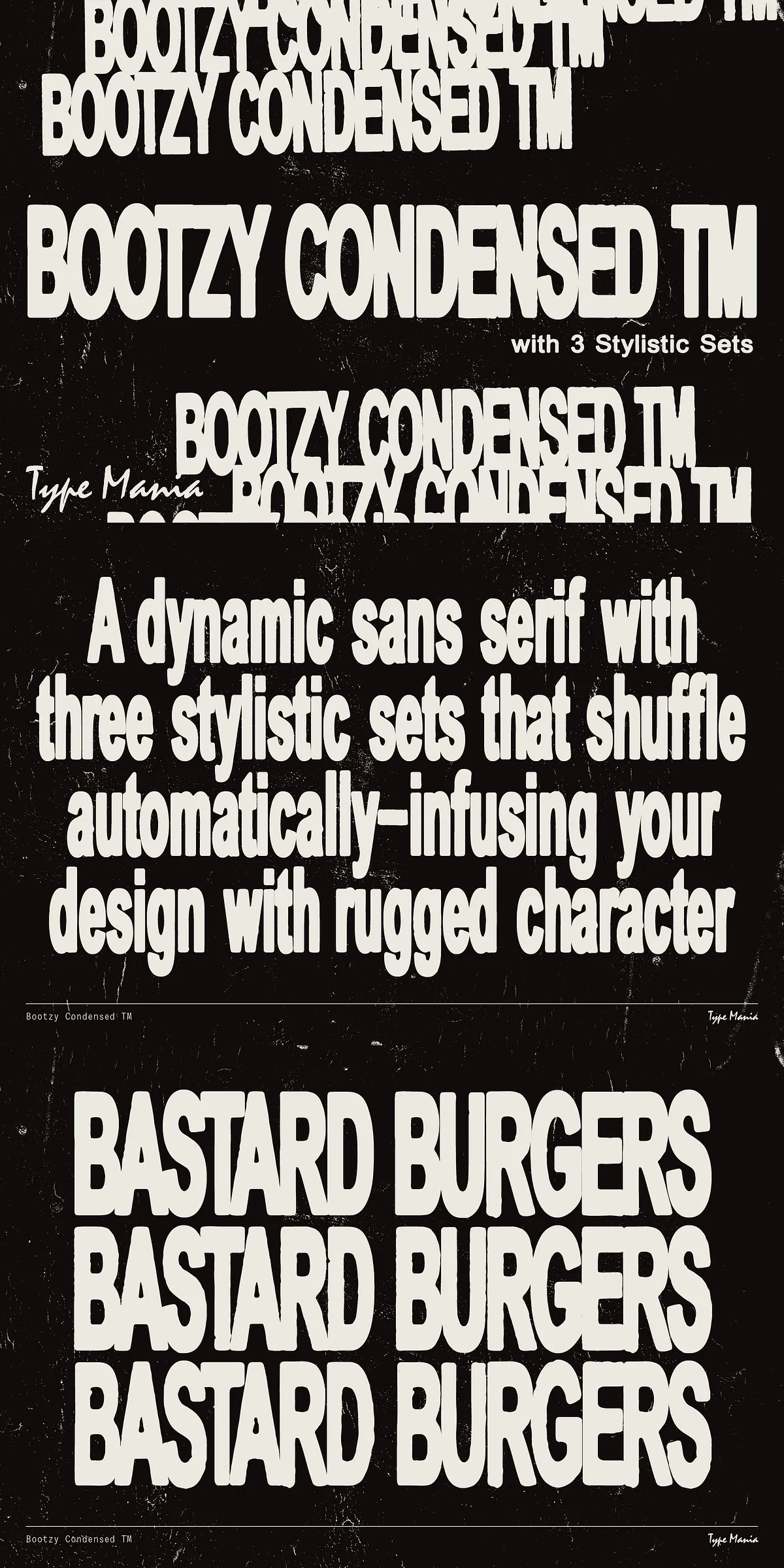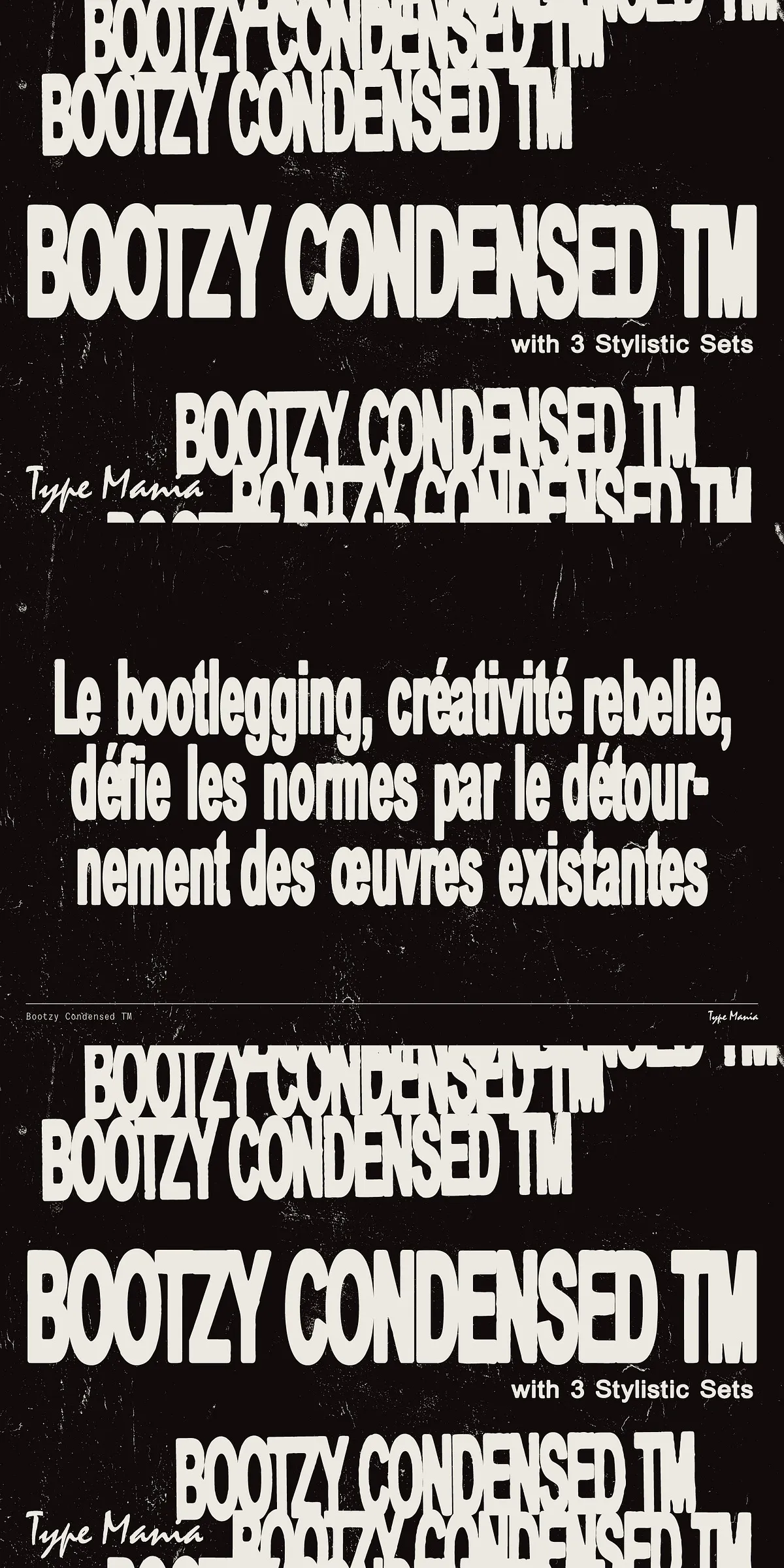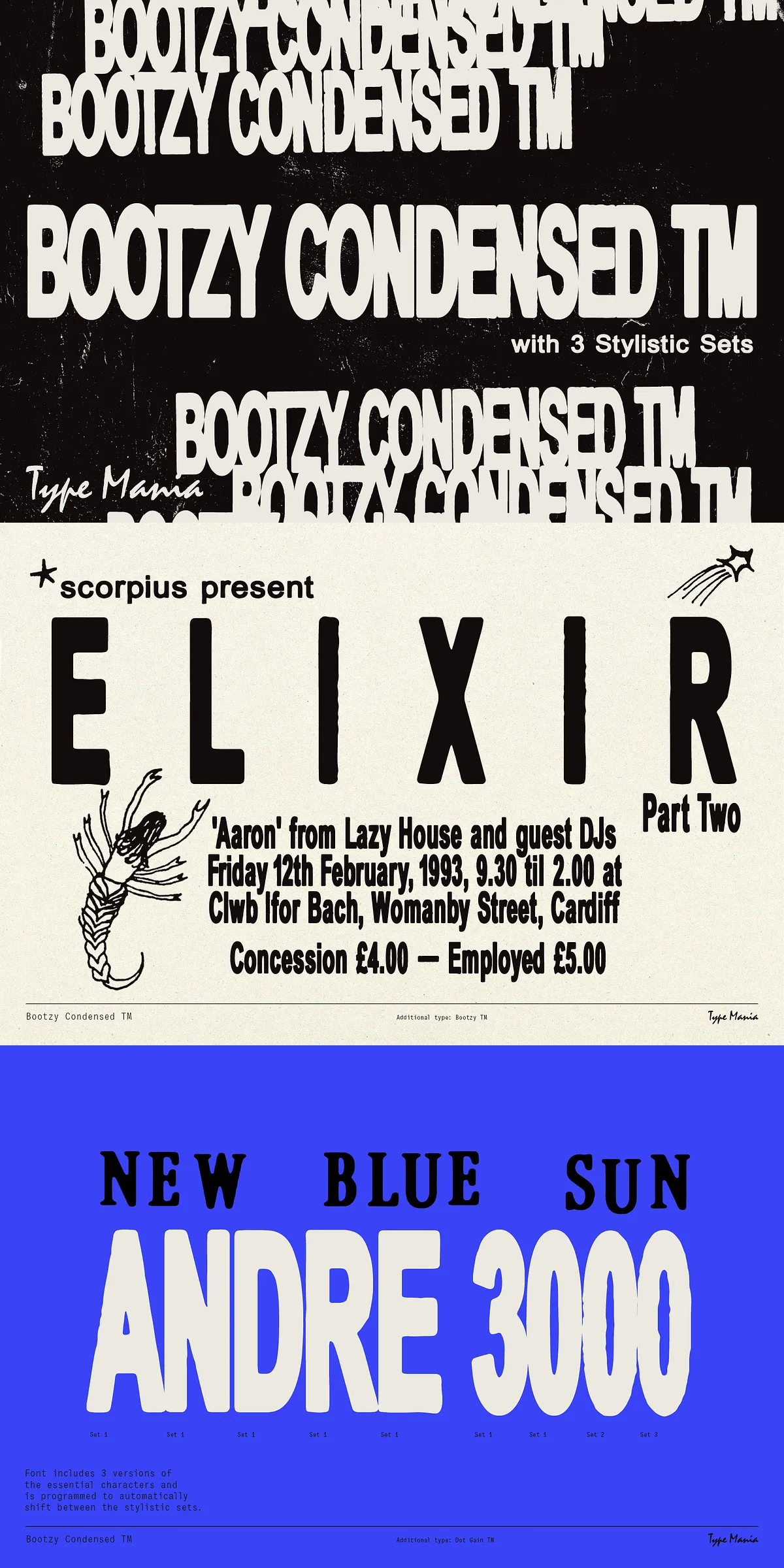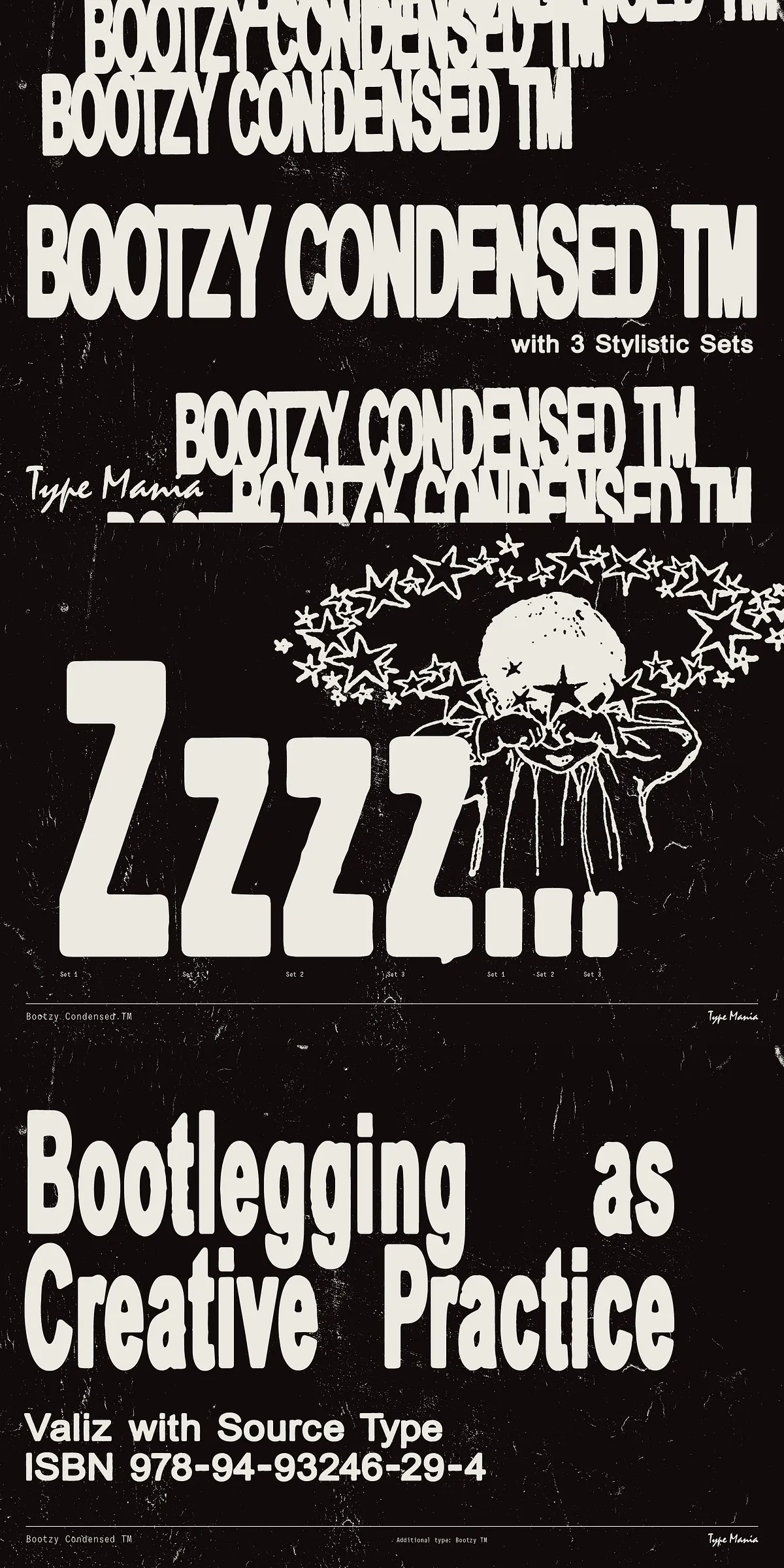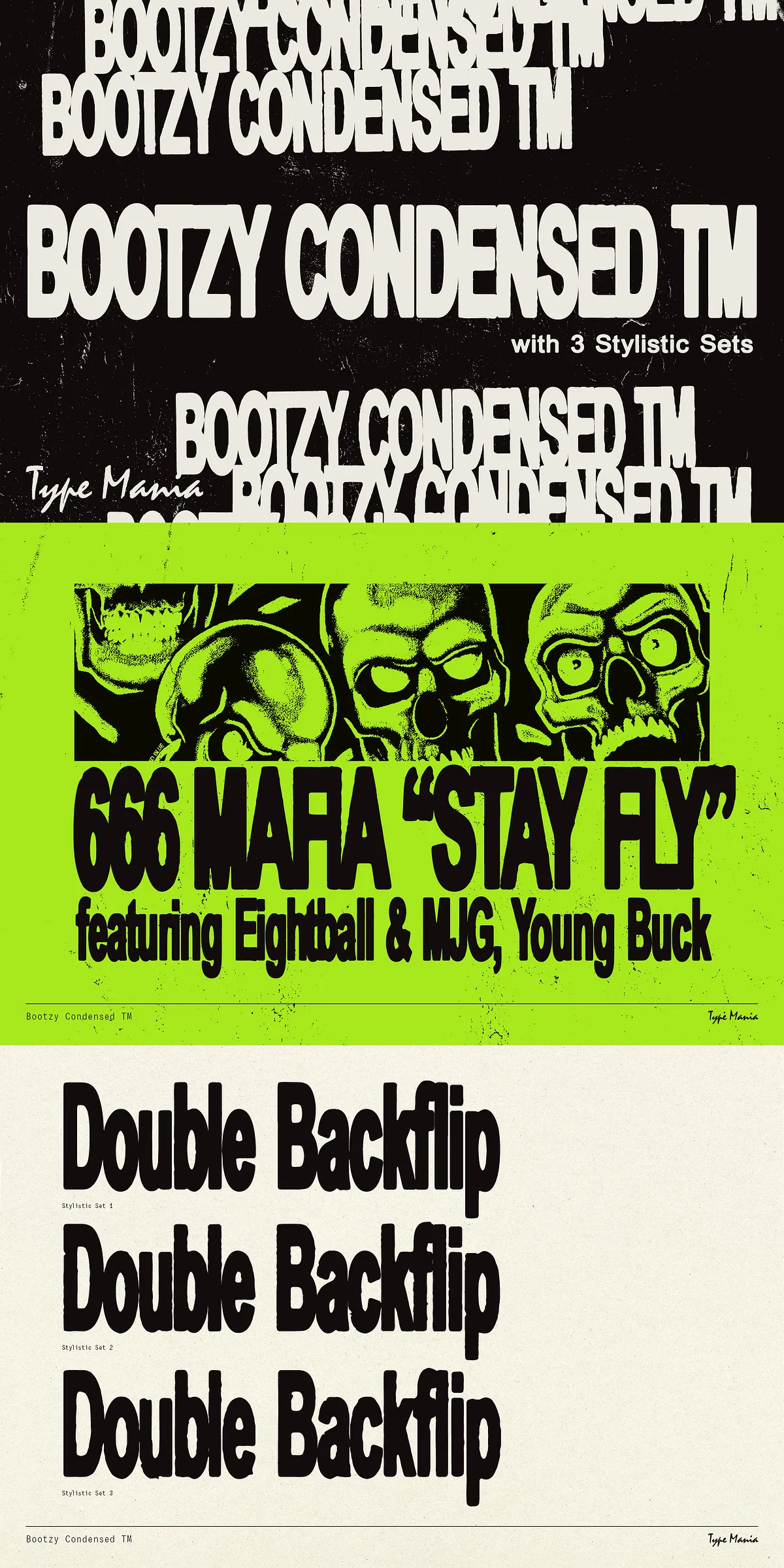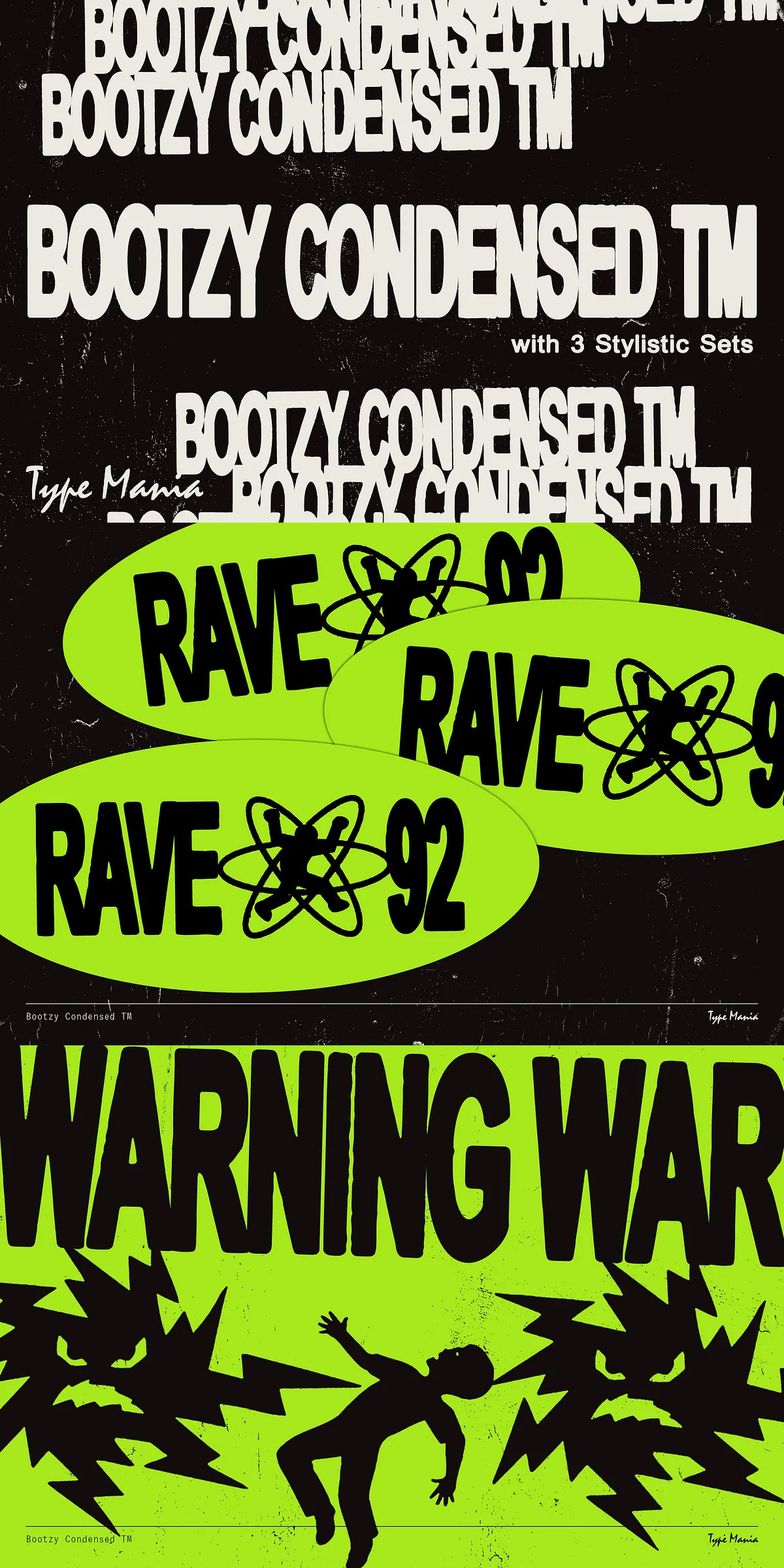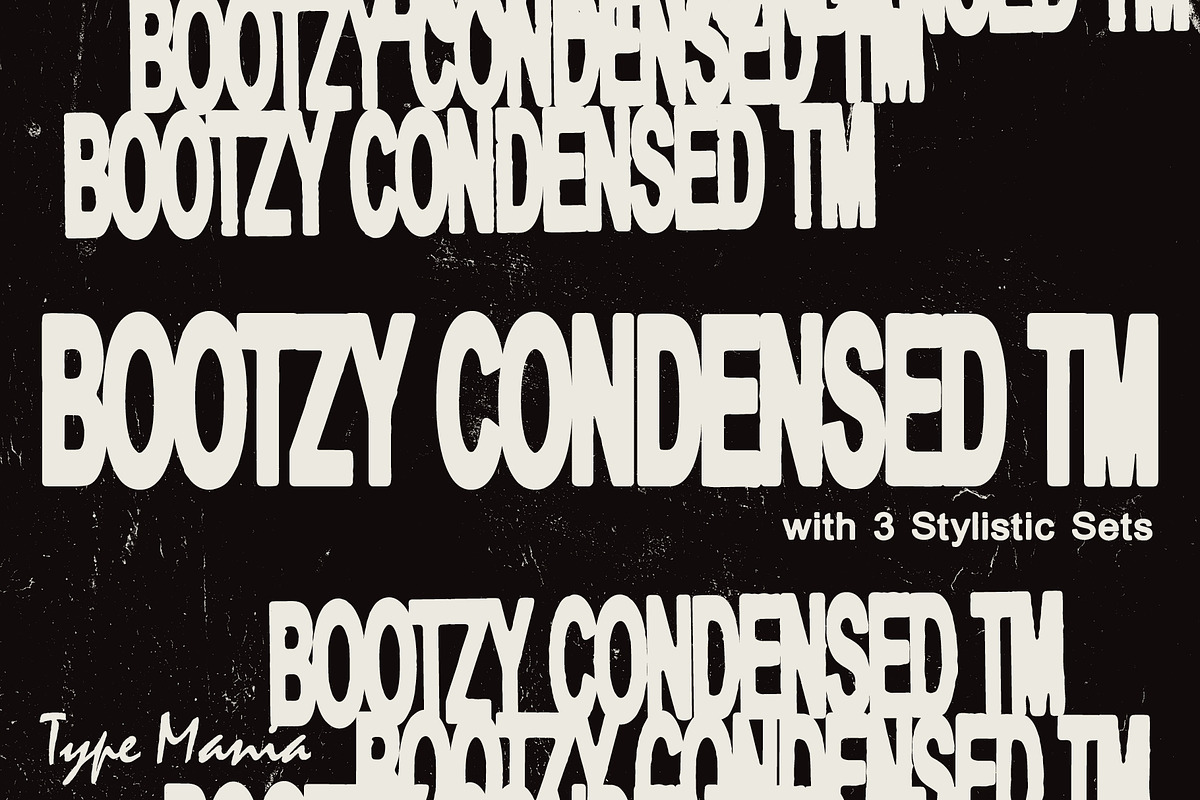
Bootzy Condensed TM – Rugged Font
Step into the underground. Unleash the chaos. Meet Bootzy Condensed TM—a rugged, high-impact display sans serif born from the raw energy of DIY culture and the fearless spirit of bootlegging. This font isn’t just a typeface; it’s a movement. Designed for those who break the mold, it thrives in the margins—on flyers, in zines, on protest posters, and across every platform that dares to be unapologetically bold.
Designed for the Rebellious, Built for Impact
If your design needs a voice that doesn’t whisper—it shouts—Bootzy Condensed TM is your weapon. Its compressed, bold forms cut through noise, commanding attention with every letter. The tight kerning and aggressive geometry create a visceral visual rhythm, perfect for headlines that demand to be seen.
Unlike sterile corporate fonts, Bootzy Condensed carries the imprint of hand-crafted defiance. Its subtle imperfections aren’t flaws—they’re features. The slight unevenness in stroke weight, the slightly erratic spacing—these are the signatures of a font that refuses to conform. It’s not just readable. It’s raw. It’s real.
Powerful OpenType Features That Think for You
Bootzy Condensed TM isn’t just visually striking—it’s smart. Thanks to advanced OpenType programming, it includes three active stylistic sets that **automatically switch** whenever you type the same character consecutively.
• Set 1: The standard, sharp-edged version for maximum clarity.
• Set 2: A slightly rougher, distressed variant for a bootlegged, handmade feel.
• Set 3: A high-contrast, angular alternative that amplifies the aggressive tone.
With a single keystroke, the font detects repetition and cycles through these sets dynamically—no manual switching, no extra effort. This automation means your text stays fresh, unpredictable, and full of tension. Perfect for creating chaotic, layered typography that feels alive.
Global Ready, Culturally Inclusive
Use It Where It Matters Most
Bootzy Condensed TM isn’t for quiet backgrounds. It’s for moments that break the surface:
• Flyers & Posters: Create flyers that stop people in their tracks—no more blending in.
• Zines & DIY Publications: Match the anarchic energy of hand-bound magazines with a font that refuses to be tamed.
• Streetwear & Merch Branding: Give your brand identity the edge it needs. Think punk, think rebellion.
• Music & Festival Graphics: Perfect for event branding where raw energy reigns.
• Web & Social Headers: Command attention on Instagram captions, YouTube thumbnails, and landing pages.
Final Word: Don’t Just Type—Declare
Bootzy Condensed TM isn’t just a font. It’s a declaration. It’s a signal to the world: “I’m not here to blend in. I’m here to stand out.”
Whether you’re a designer, artist, musician, or brand-builder, this font gives you the power to speak loudly—not with words, but with form.